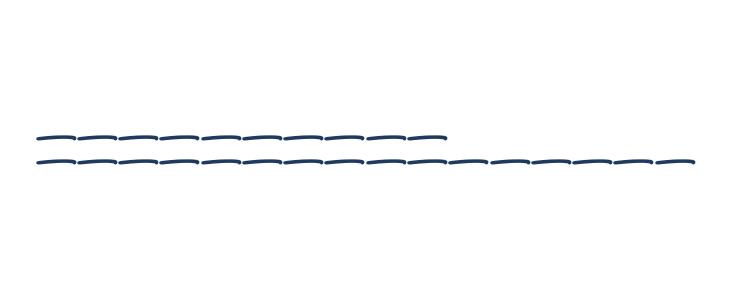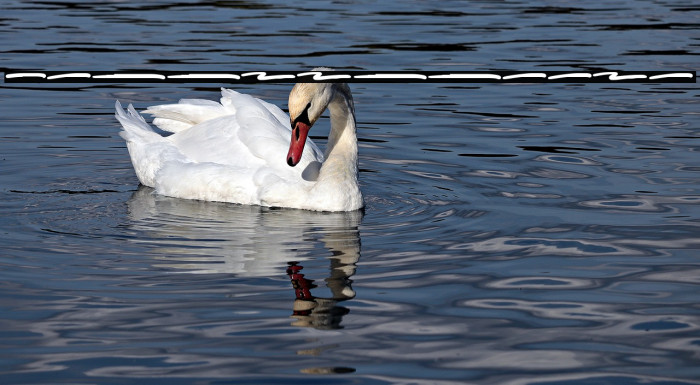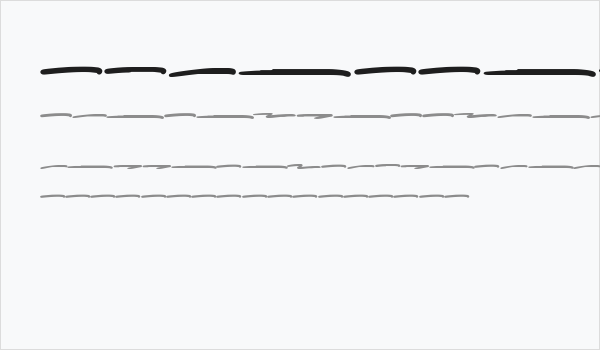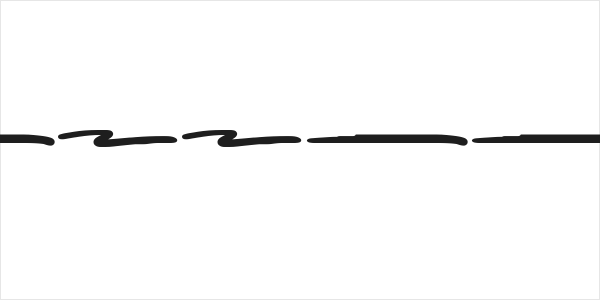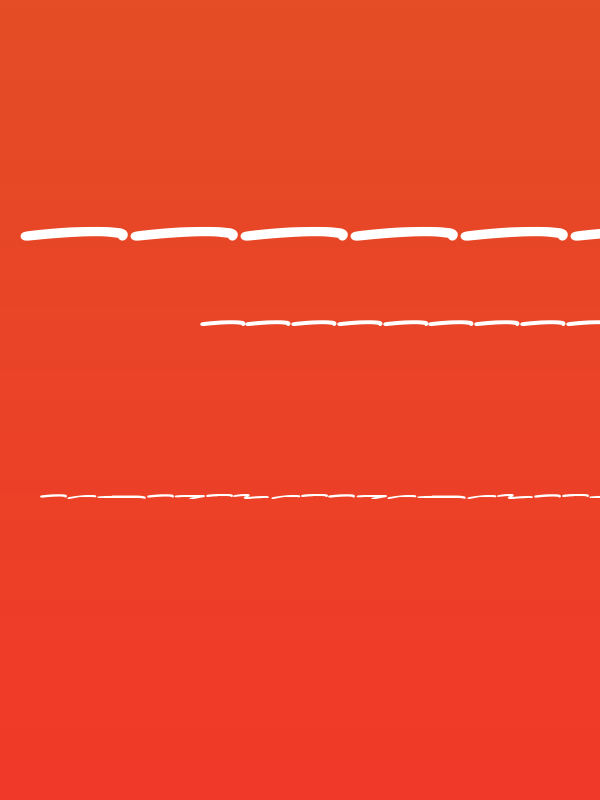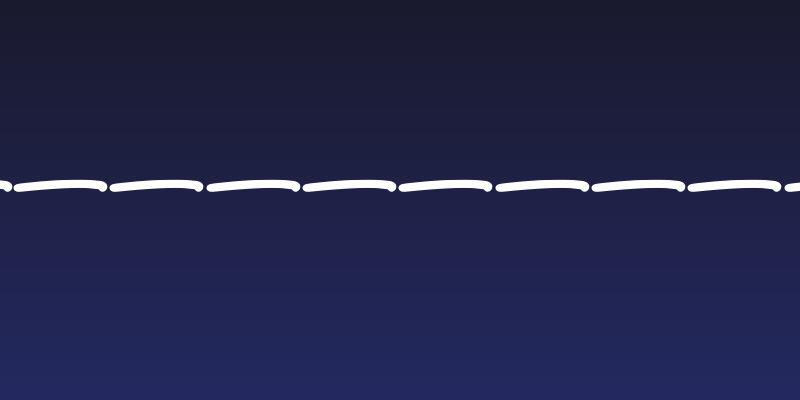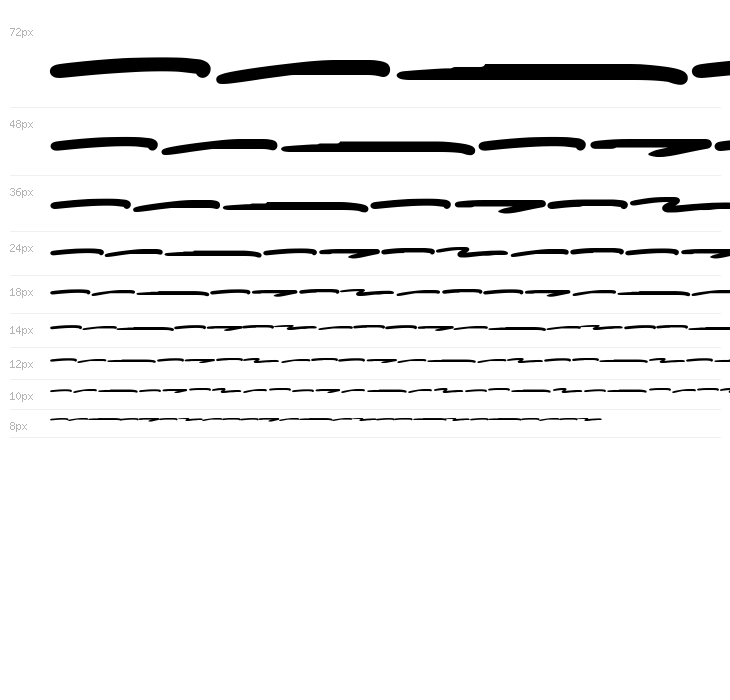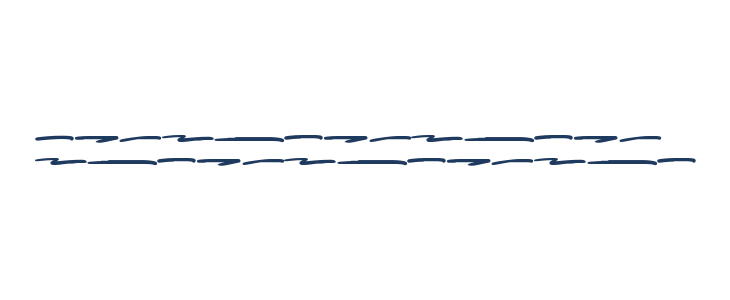
Gumy Monster Swash Font
Gumy Monster Swash Description
This font features a playful and whimsical design, characterized by its wavy, irregular lines that mimic the appearance of a hand-drawn or doodled style. The strokes are consistent in thickness, creating a uniform look across all characters. The font exudes a sense of fun and creativity, making it ideal for projects that require a lighthearted and informal touch. Its unique style is reminiscent of a child's drawing, adding a touch of innocence and charm. The characters are evenly spaced, ensuring readability while maintaining the font's quirky aesthetic.
| Proposed Projects | Ideal for children's books, playful branding, greeting cards, and creative posters. |